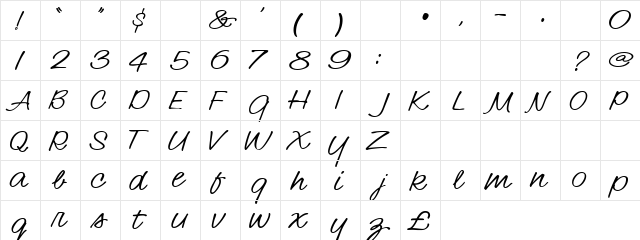
ArcherDNA Regular
Design Context for ArcherDNA Typeface
ArcherDNA offers clean, dependable letterforms without strong stylistic allegiance, making it a practical choice for designers who need flexibility.